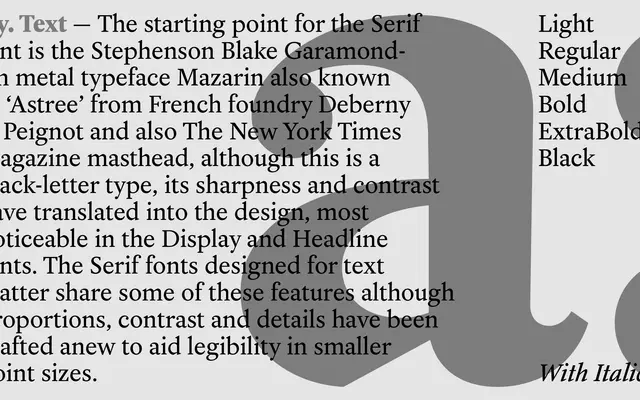
Ny. Text specimen from A2-Type
A text-optimised serif drawn from Mazarin and Astree references, with sharpness borrowed from blackletter logotype tradition, tuned for small-size legibility.
Part of the wider Ny. superfamily, this text cut adapts the Garamond-like qualities of Stephenson Blake's Mazarin and Deberny & Peignot's Astree, filtered through the high-contrast sharpness of The New York Times Magazine logotype. Proportions and detail have been reworked specifically for body copy performance, with seven weights from Light to Black each accompanied by italics. The family sits within a broad system that includes headline serifs, sans, slab and stencil variants.
Rooted in the Garamond tradition via Stephenson Blake's Mazarin and Deberny & Peignot's Astree, with sharpness and contrast drawn from Gothic Blackletter influence, rebalanced for text legibility at smaller sizes.